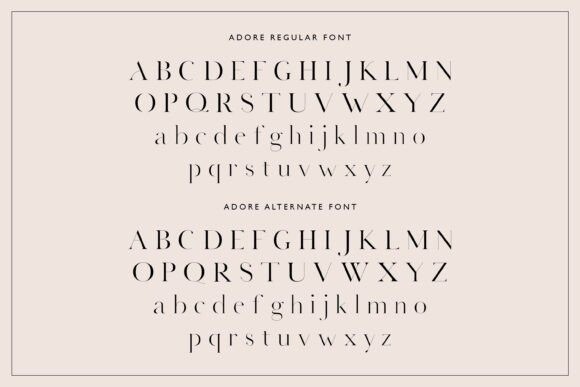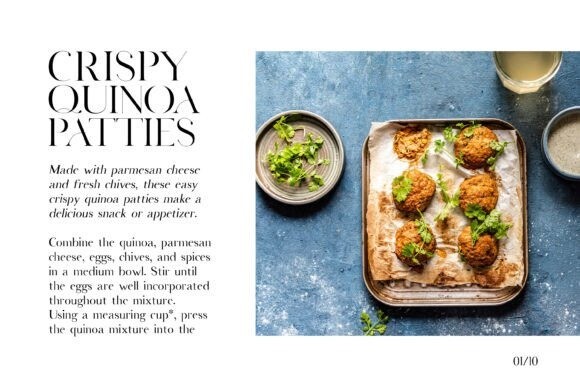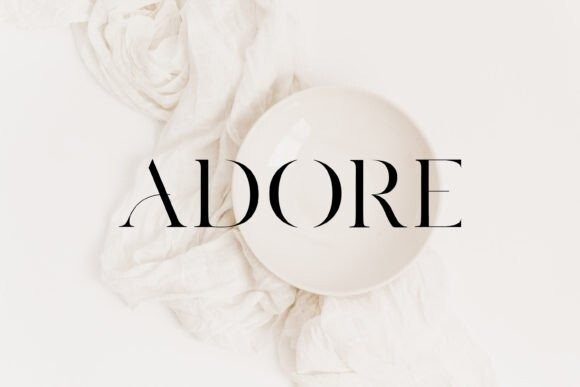
Adore Serif Font
Adore Serif Font, is an elegant serif typeface with delicate details. This neat font can contribute to the modern and fashionable appeal of any brand.